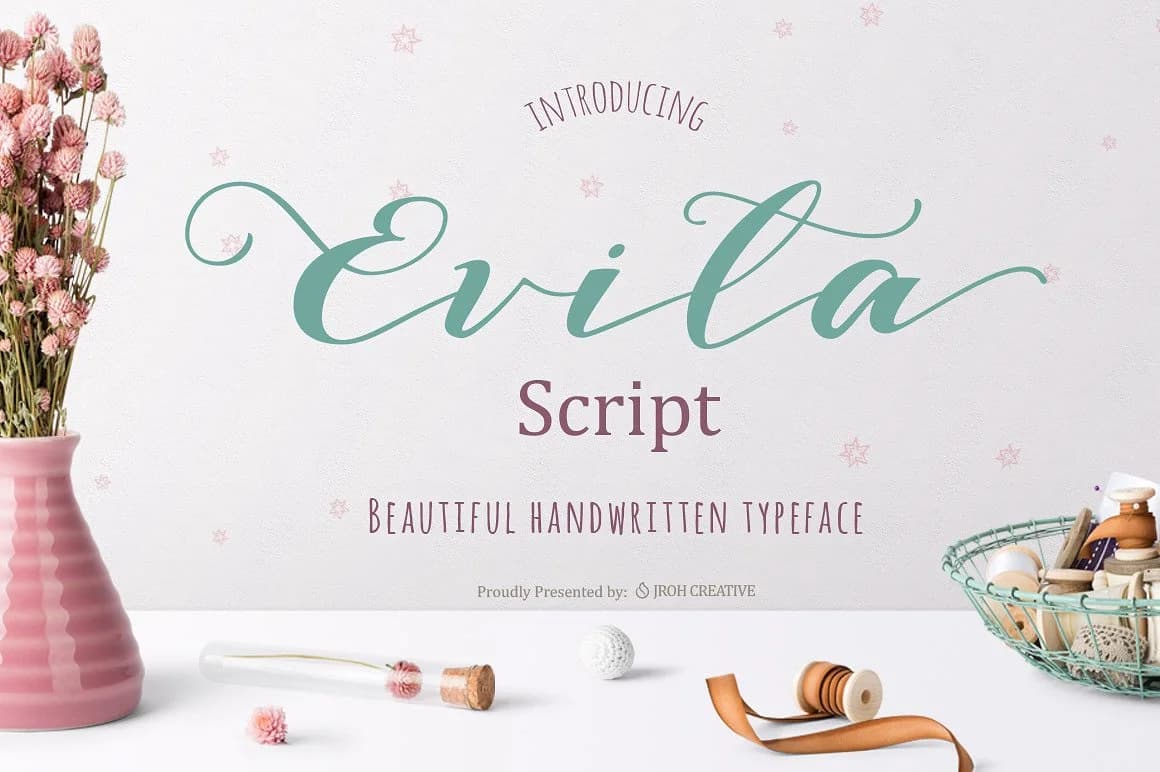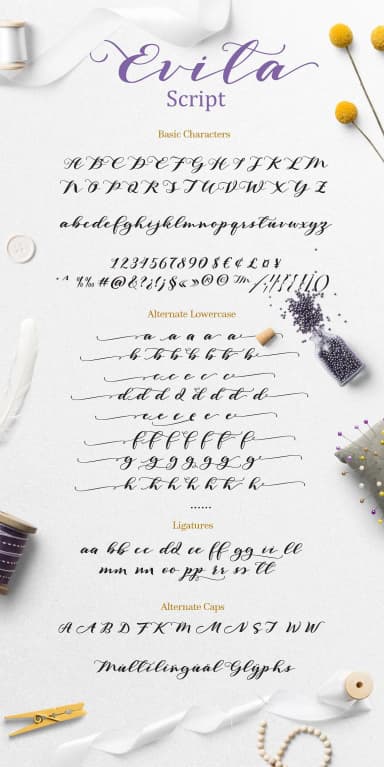
Evita by JROH Creative is a playful handwritten script that brings genuine warmth and distinctive personality to a broad, impressive range of creative projects. The font's flowing, natural letterforms work beautifully for wedding invitation suites, where its casual elegance adds an intimate, personal touch without sacrificing sophistication and refinement. Designers and makers turn to Evita when creating bold Etsy shop headers and product titles, boutique product labels for artisan goods, and personalized thank-you cards that genuinely stand out in a crowded marketplace. Its approachable, friendly style makes it equally ideal for DIY craft projects, vibrant social media graphics and Instagram story elements, and hand-lettered signage that needs an authentic, homemade feel.
The script's real strength lies in its balance between whimsical charm and reliable readability, making it equally comfortable on greeting cards, gift packaging designs, and branding materials for small creative businesses and independent makers. Whether you're designing custom stationery for a local bakery, creating personalized merchandise, launching a handmade Etsy shop, or adding warmth and personality to digital content, Evita delivers that truly coveted handcrafted aesthetic that genuinely resonates with today's consumers. Start your next creative adventure with the Evita Font on Creative Fabrica.
- Elegant, Flowing, Evita
Evita Font is a script font that shines as a display or heading face. Pair it with a clean sans-serif or serif font for body text β the contrast creates a clear hierarchy while the two styles stay balanced and easy to read.